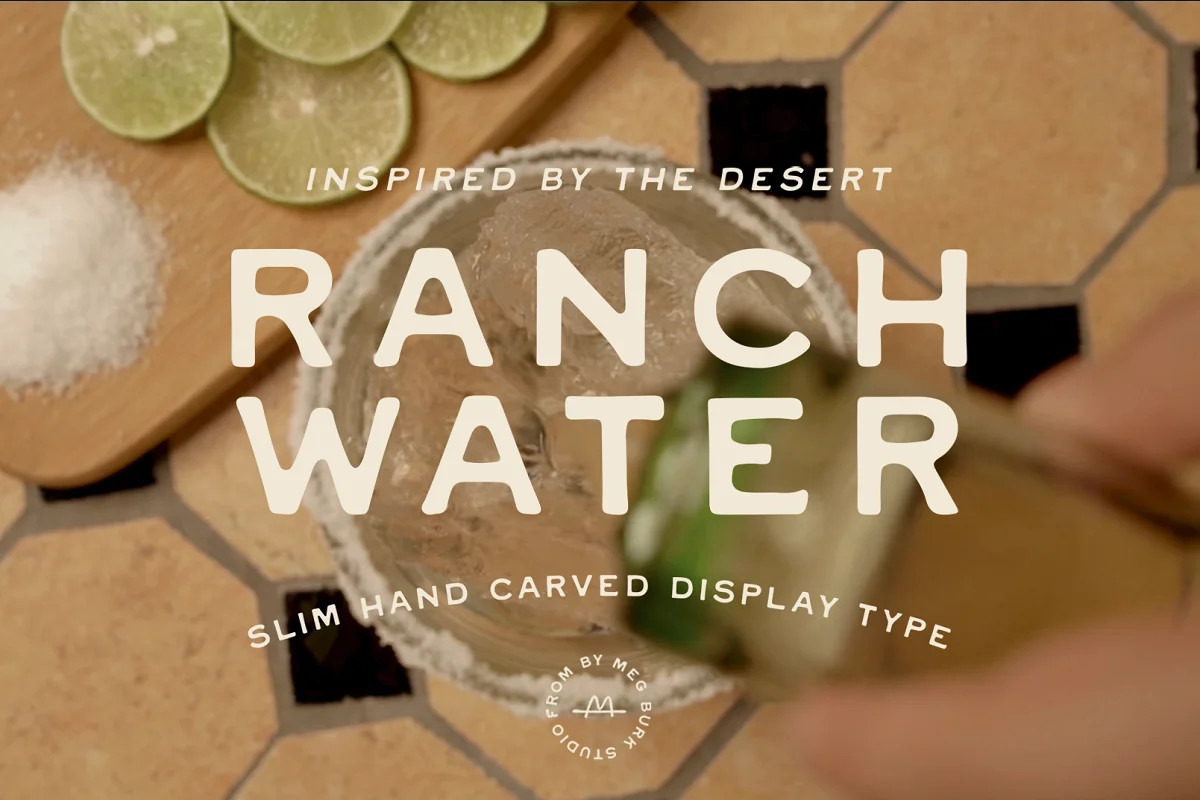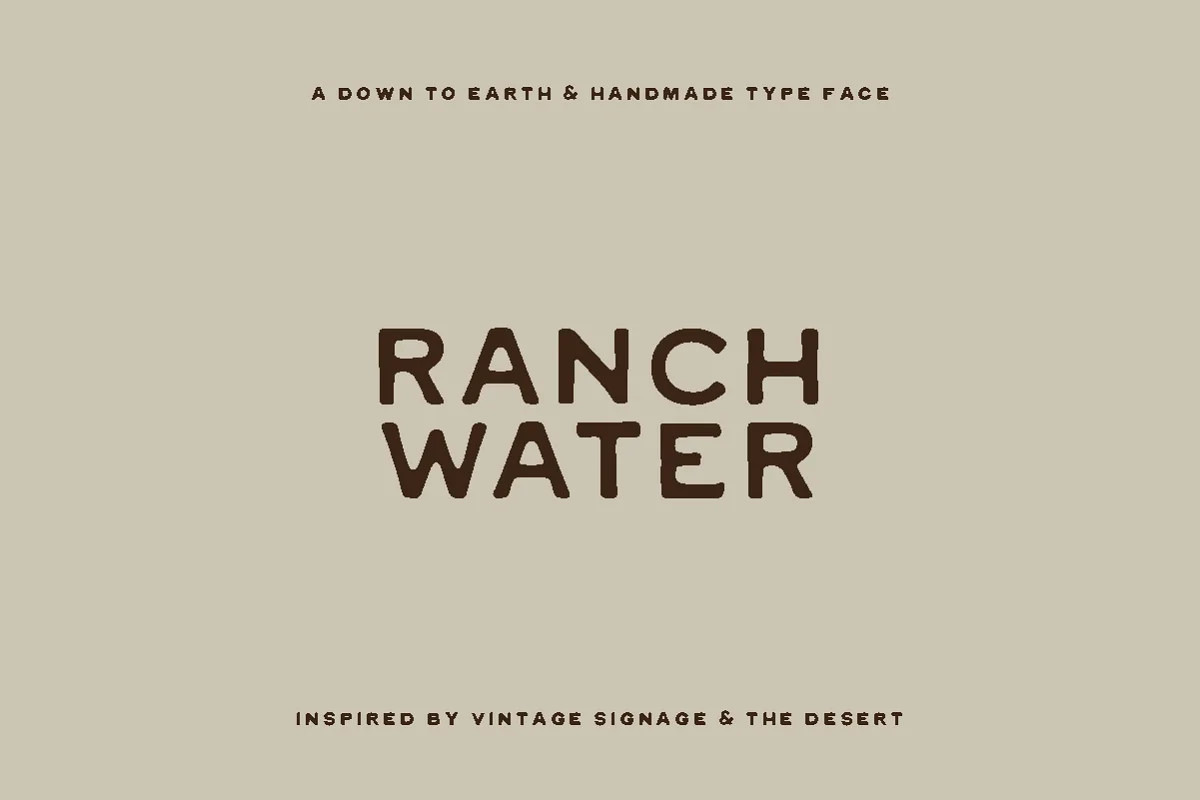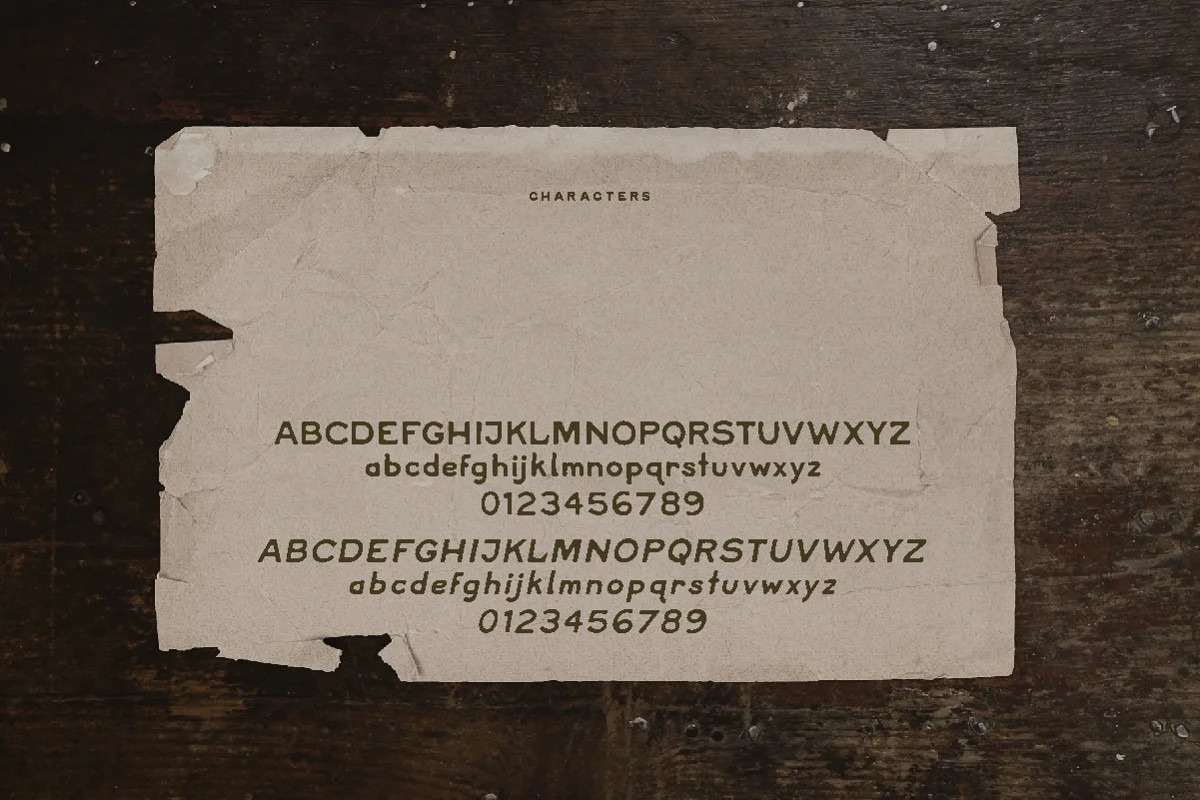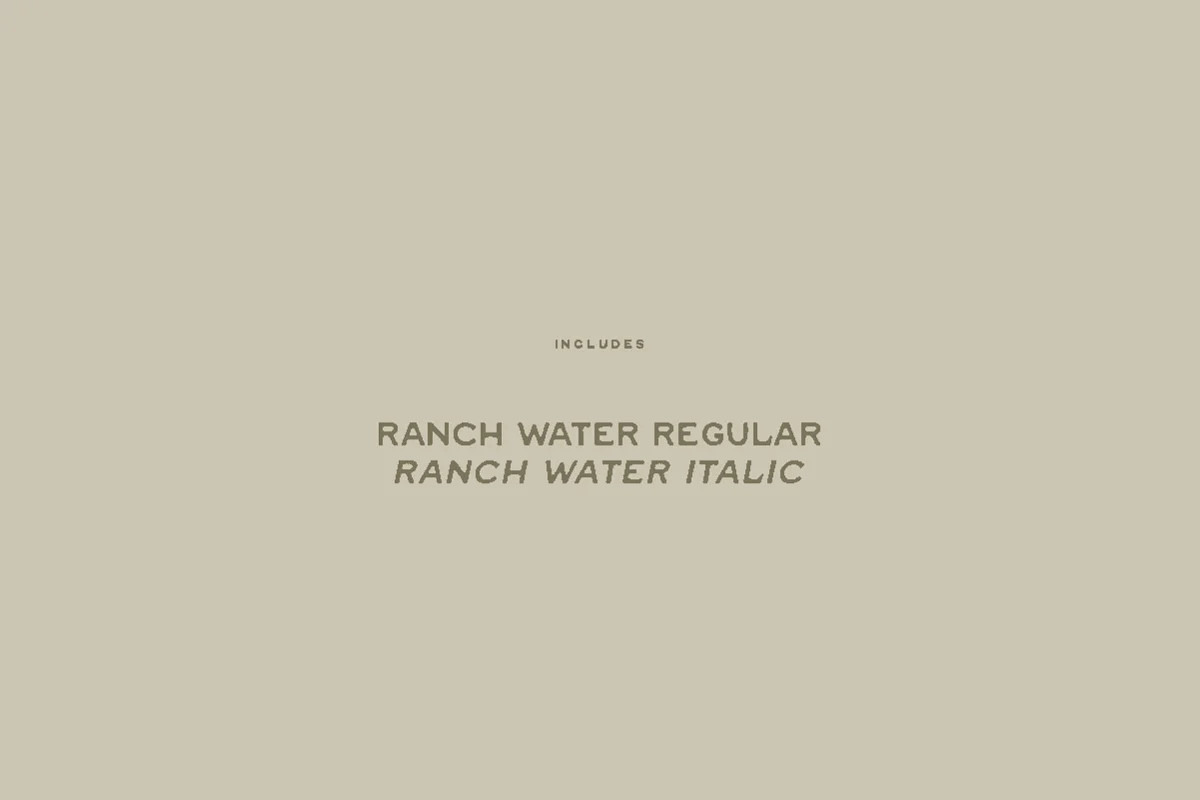
Ranch Water Display Type Font
In the beginning of 2022, I made a font called Cowboy. Quickly it became the most popular of my fonts, and I also found myself gravitating towards it for every project. It has wonderful qualities, but I found myself needing a slimmer version. One that is a bit more carved out, and that includes lowercase in the event that they're needed. Out of this necessity, Ranch Water was born.
Enjoy using this hand carved font in all sorts of projects. It suits brand designs and product labels of any kind, but especially the down to earth, rustic, vintage ones.